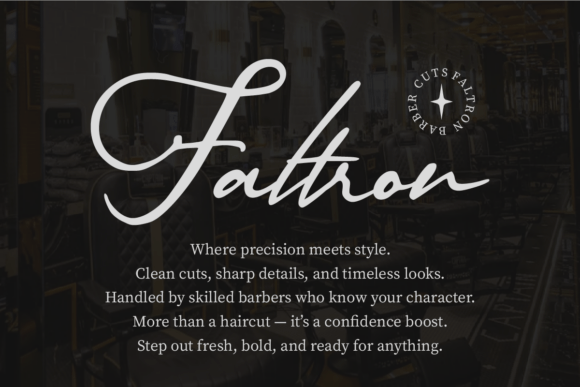
Introduction to Blacksky Faltron Font
Blacksky Faltron is a modern stylish handwritten script font with elegant strokes and smooth flow.
Designed to feel classy yet natural, this font delivers a strong and expressive look for premium creative projects Perfect for logo, branding, poster, headline, fashion design, photography, packaging, social media, and luxury display text.
Why Choose Blacksky Faltron Font?
Blacksky Faltron Font offers exceptional quality and versatility, making it a valuable addition to your design toolkit. Whether you’re creating for personal projects or commercial use, Blacksky Faltron Font delivers professional results.